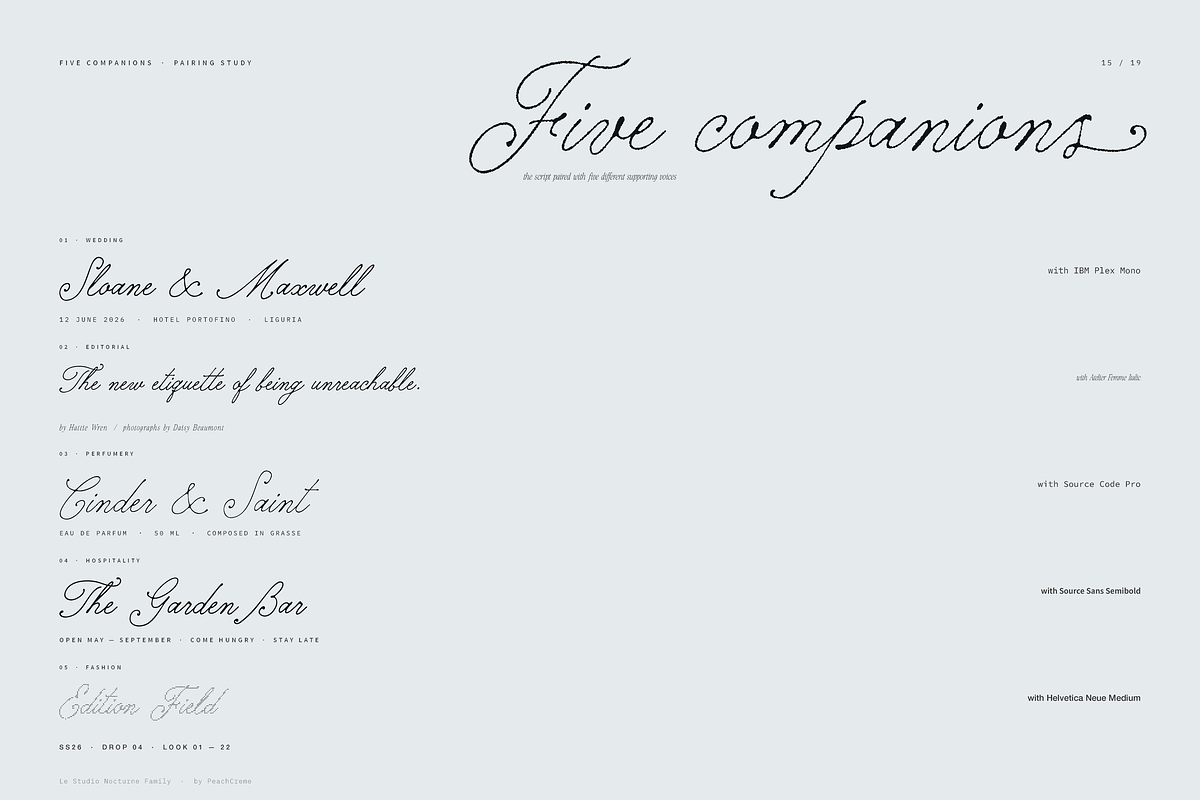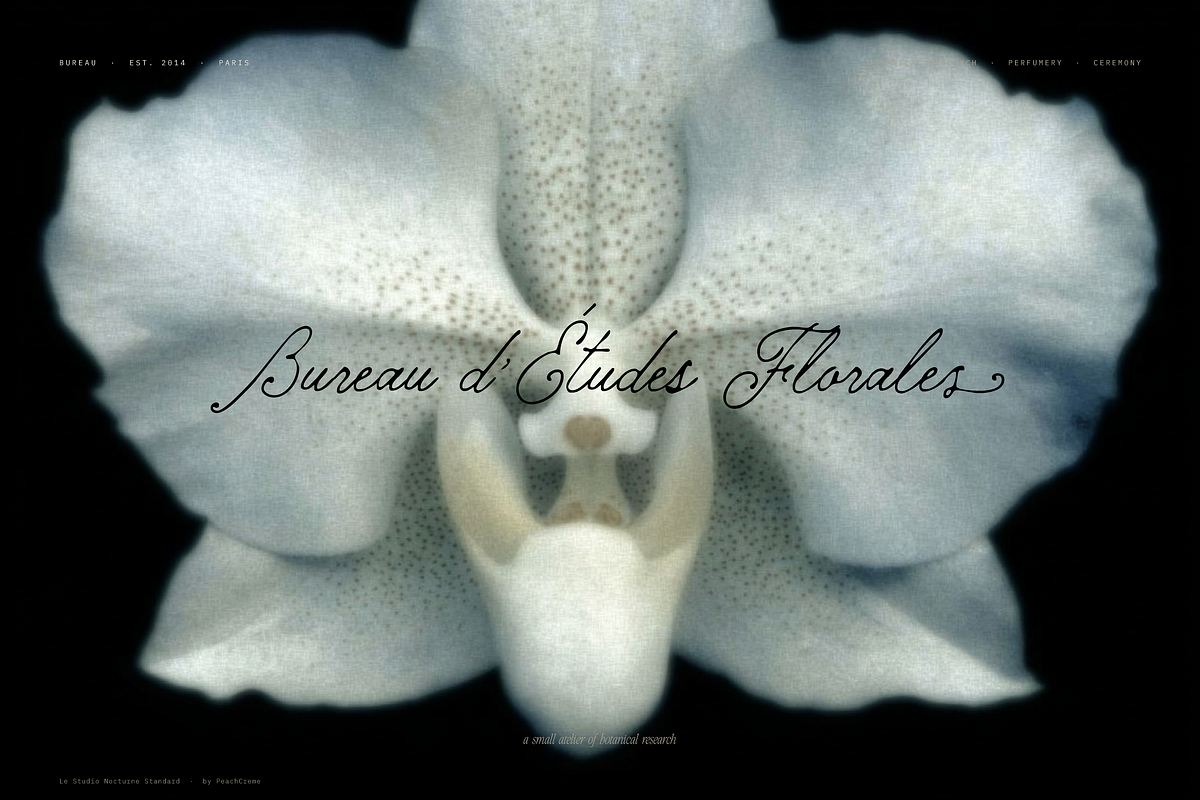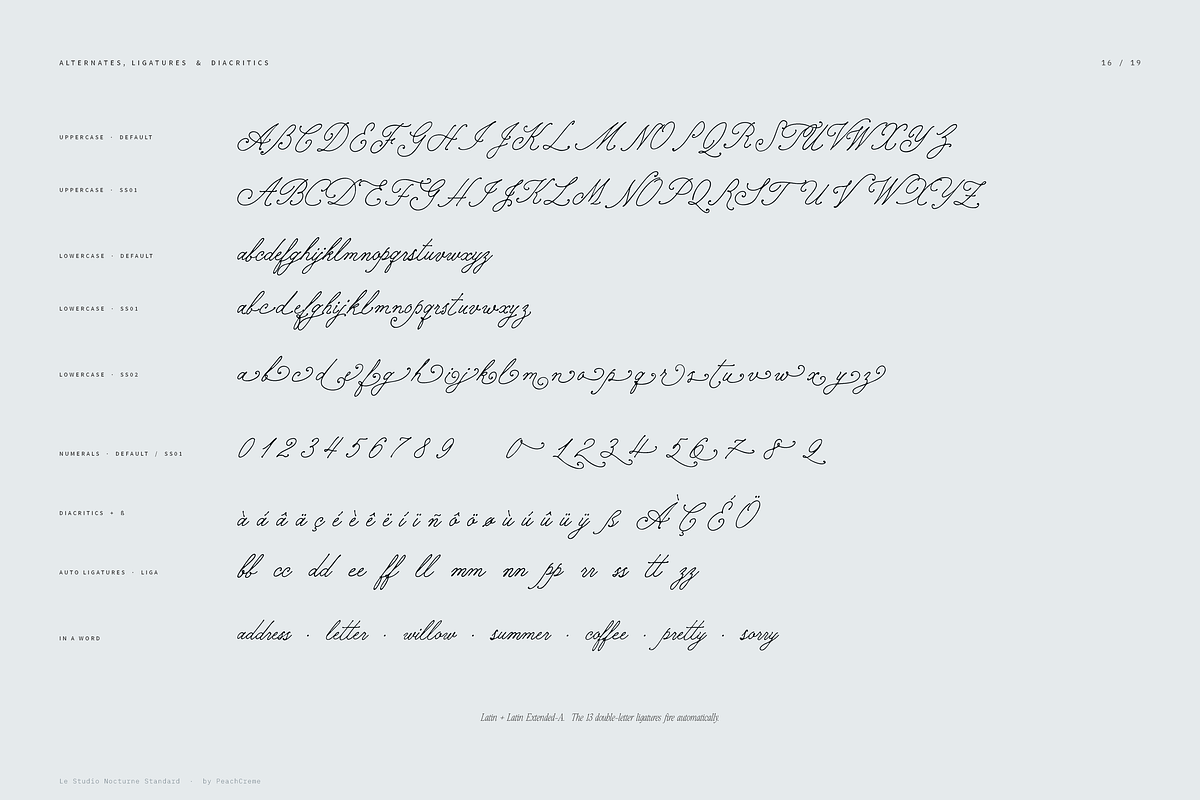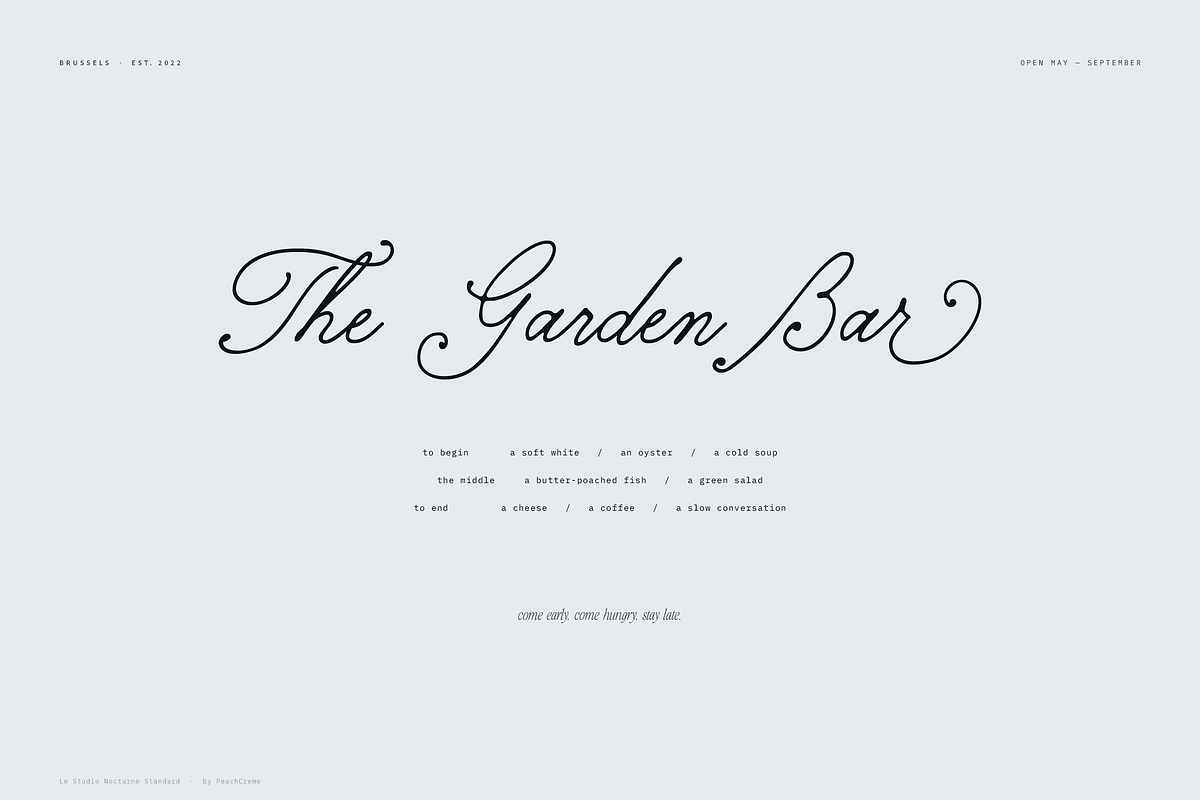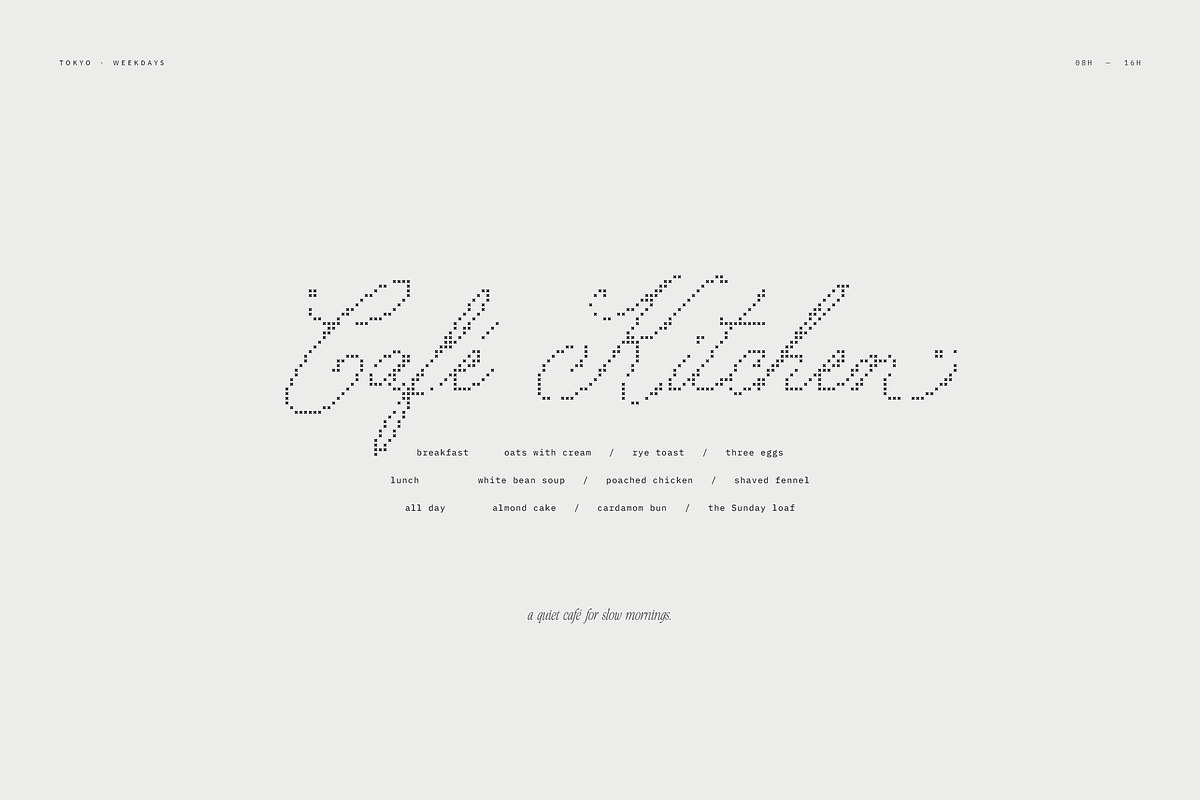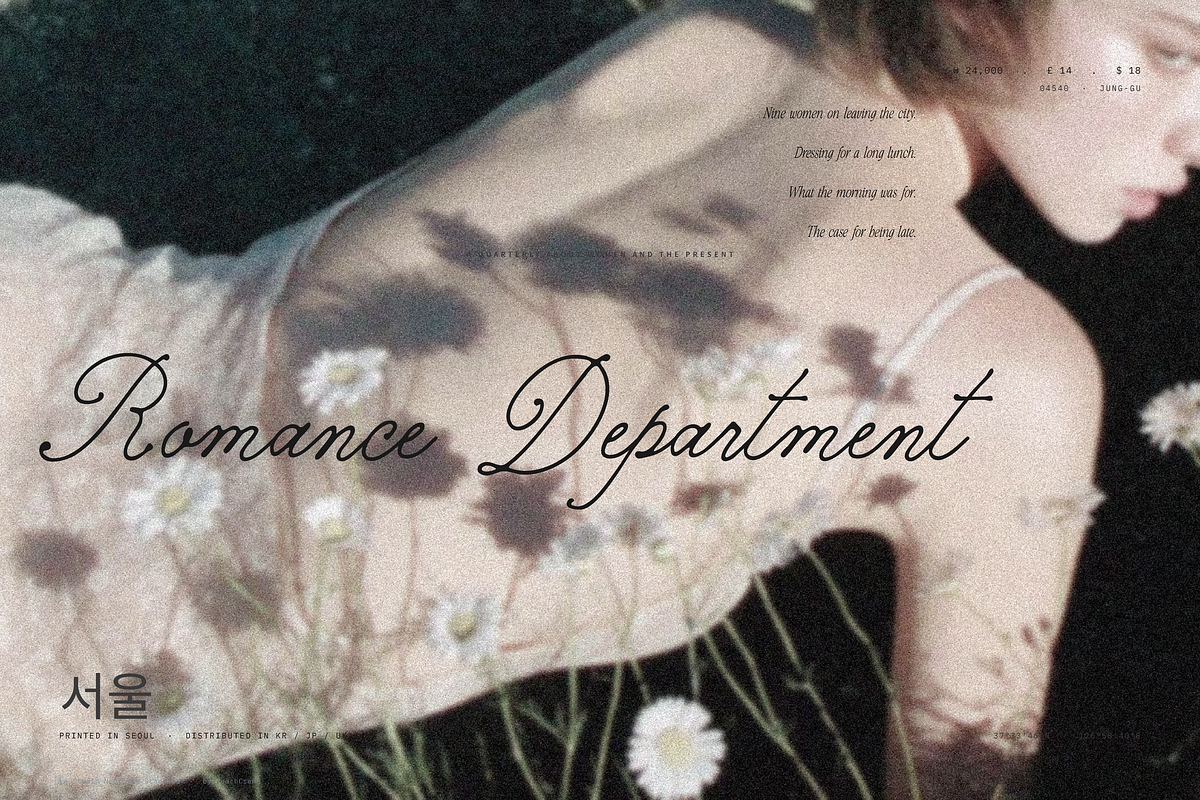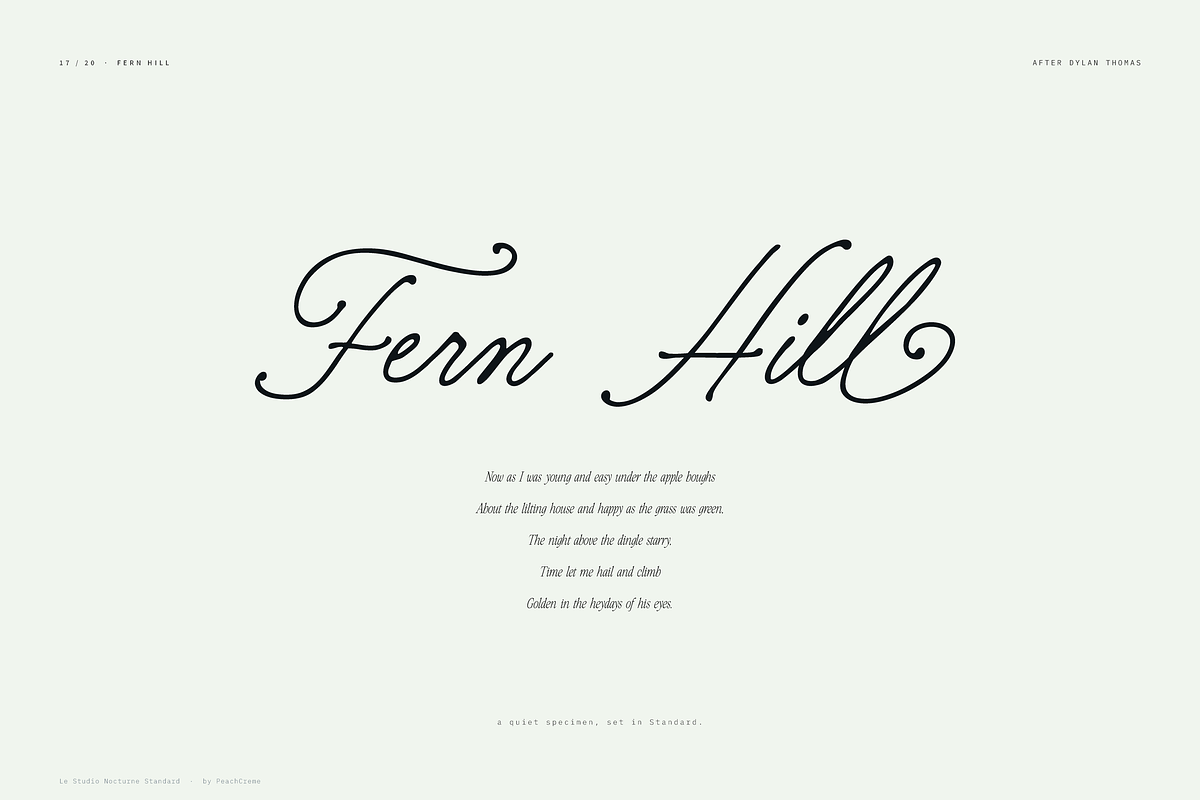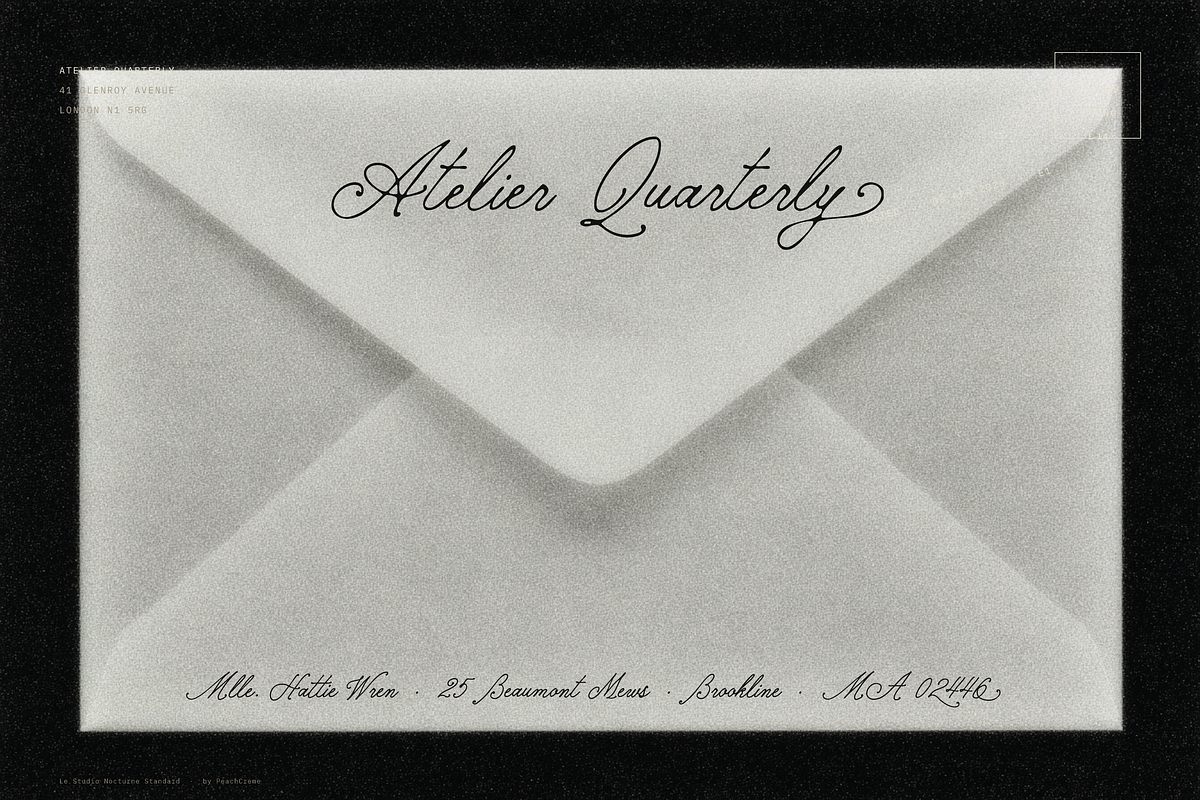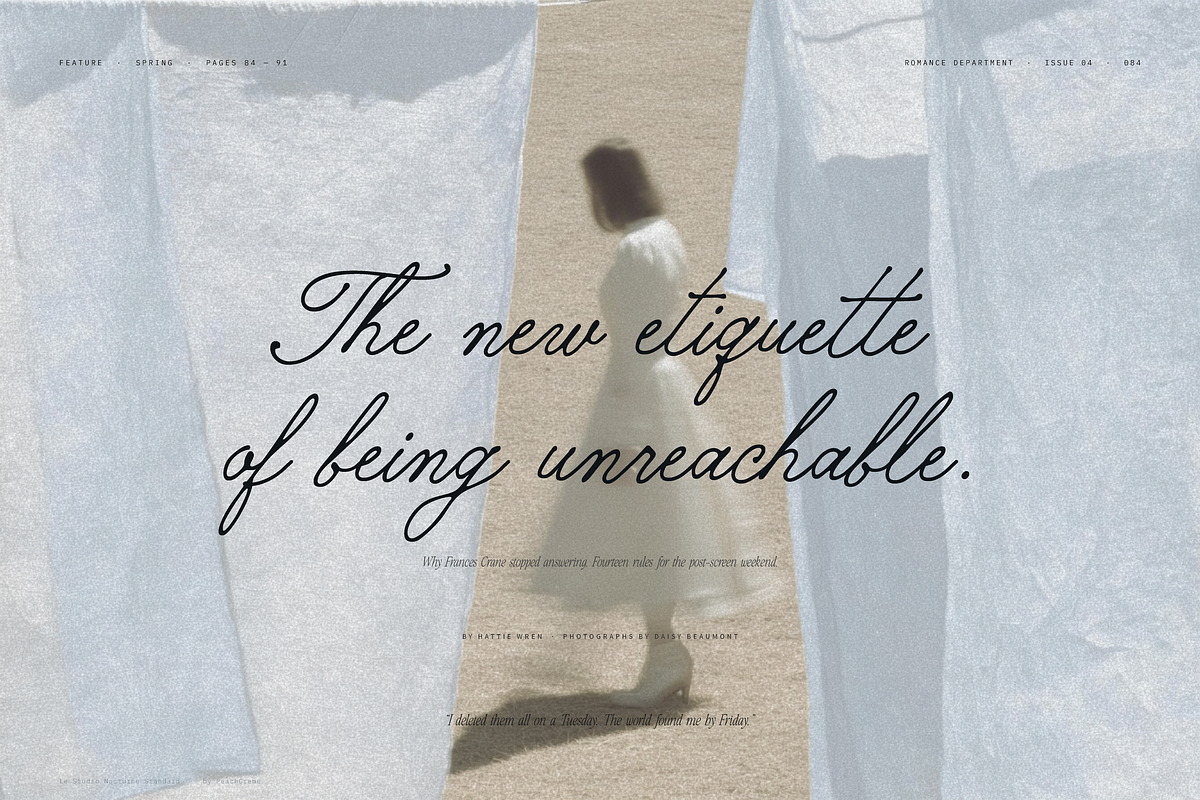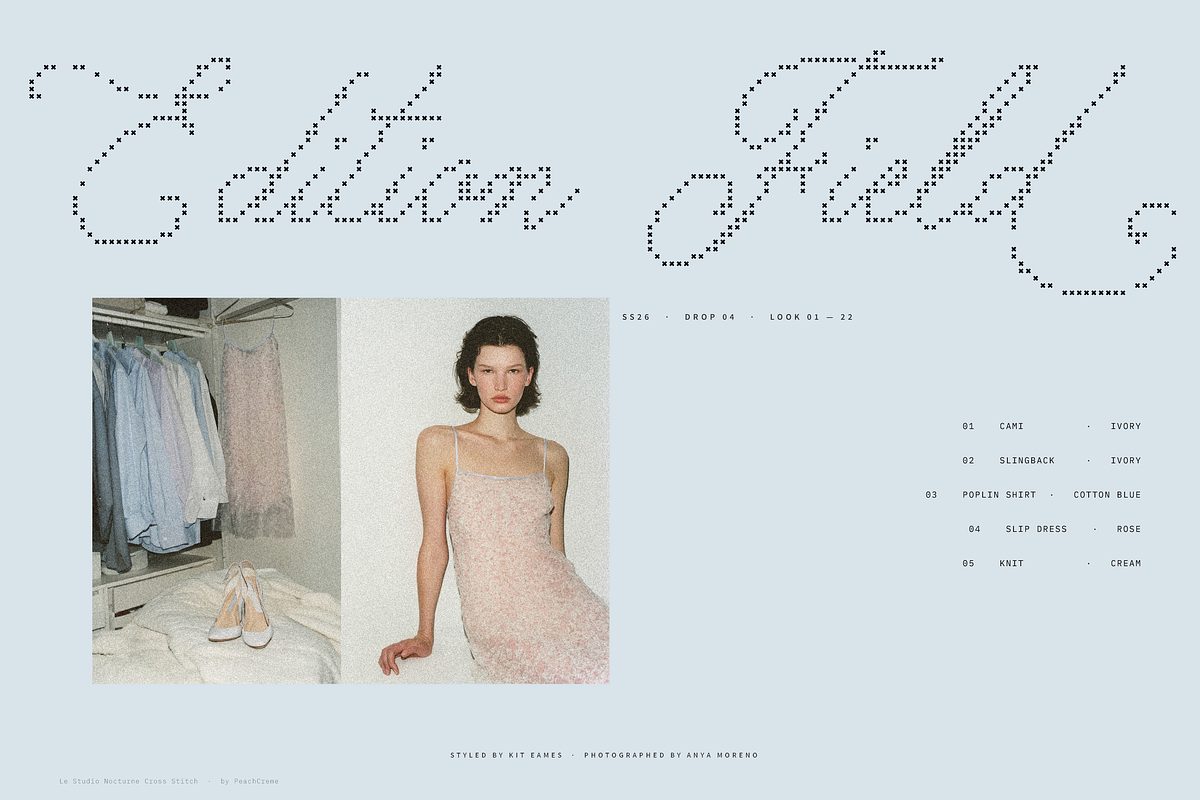
Le Studio Nocturne // Nostalgic Set
Le Studio Nocturne, a handwritten font set A script for slow things. Perfume, weddings, menus, the kind of magazine you keep. Inky, a little nostalgic, looks like it was written rather than typeset.
Six fonts in the set:
Standard — the everyday one
Bold — heavier, for headlines
Superfine — hairline-thin, for titling
Aged — softly distressed
Thin Rough — light with a pencil texture
Cross Stitch — dotted, for embroidery and craft moods
OpenType:
1 alternate for every uppercase letter
2 alternates for every lowercase letter
Alternate numerals
13 auto double-letter ligatures (bb, cc, dd, ee, ff, ll, mm, nn, pp, rr, ss, tt, zz)
Latin + Latin Extended-A, ß and diacritics included